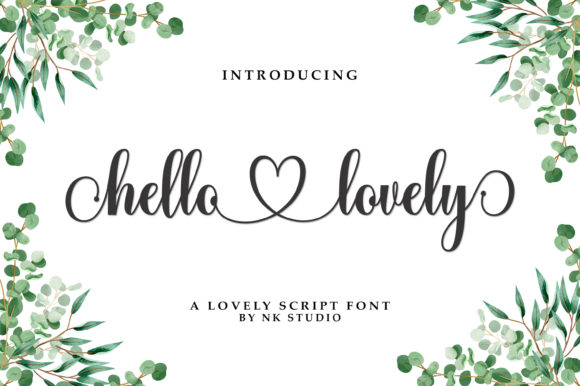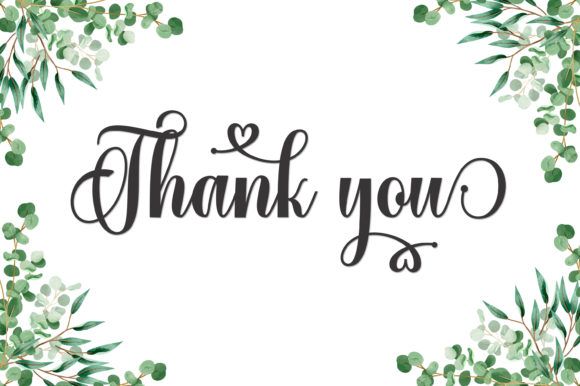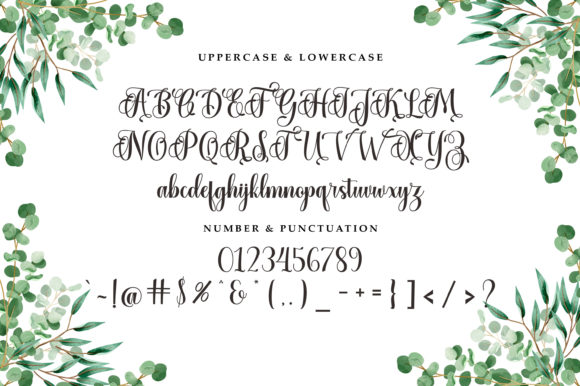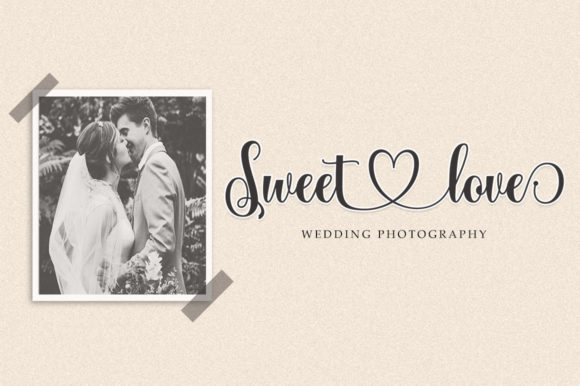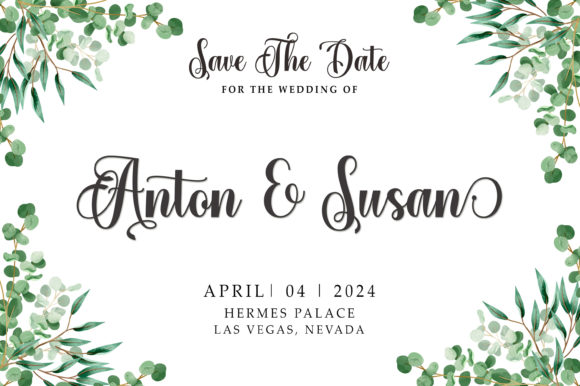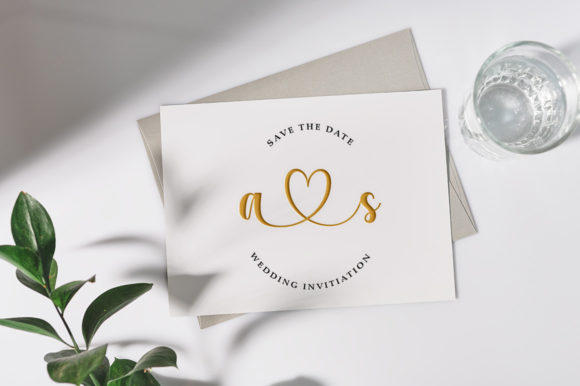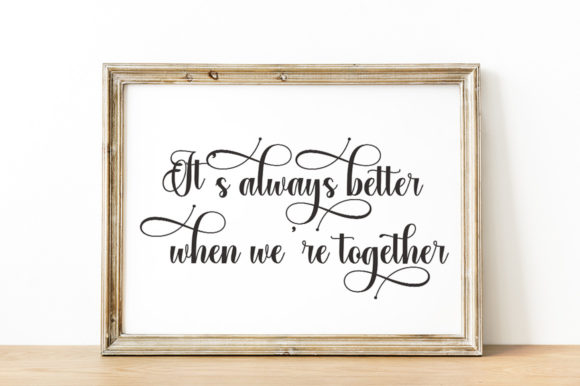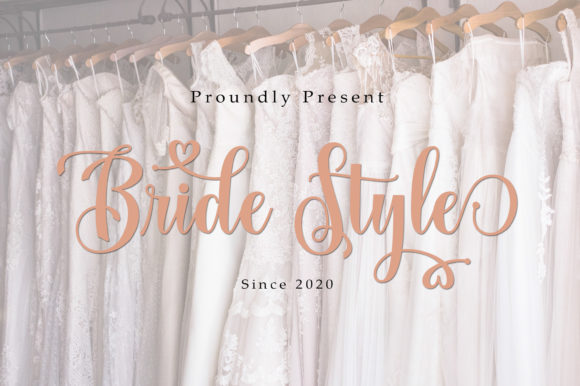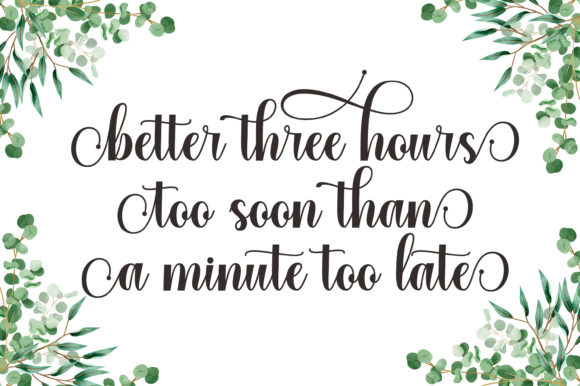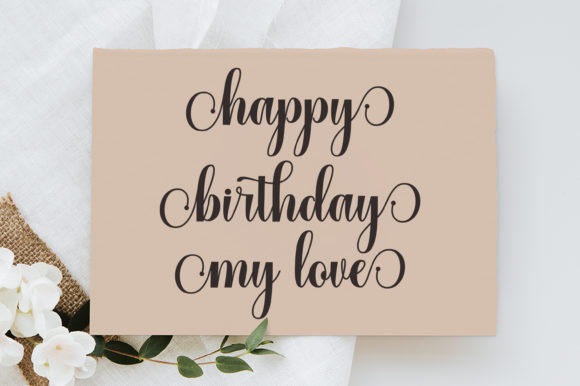
Hello Lovely Font
About Hello Lovely Font
“Hello Lovely” is a refined and graceful handwritten font that exudes elegance and sophistication. With its delicate strokes and flowing curves, this font adds a touch of charm and beauty to any design project.
One of the defining features of “Hello Lovely” is its well-balanced characters, which are meticulously crafted to achieve harmony and gracefulness. Whether used for invitations, branding, posters, or any other creative endeavor, this font seamlessly integrates into a wide range of designs, enhancing their visual appeal and allure.
By incorporating “Hello Lovely” into your most creative ideas, you’ll instantly notice how it breathes life into them, elevating them to new heights of elegance and refinement. Its timeless style and versatile nature make it a perfect choice for a variety of applications, from wedding invitations to branding materials and beyond.
With its PUA encoding, accessing all of the amazing glyphs and ligatures in “Hello Lovely” is effortless, allowing you to customize and embellish your designs with ease. This feature enhances the font’s versatility, enabling you to create unique and captivating visuals that capture the essence of your creative vision.
Overall, “Hello Lovely” is a sophisticated and versatile font that adds a touch of elegance and charm to any project. Its delicate craftsmanship and timeless beauty make it a valuable asset for designers seeking to create captivating and memorable designs.